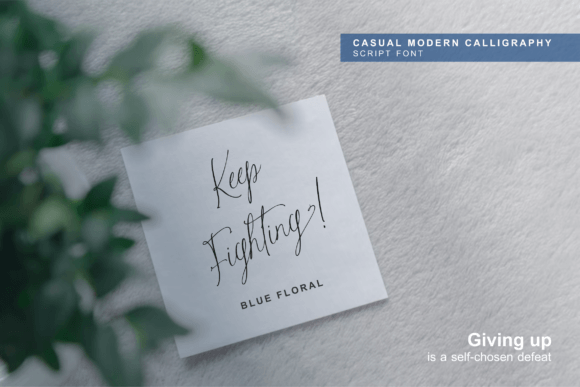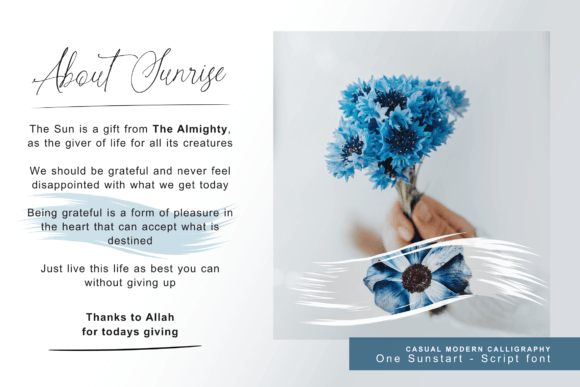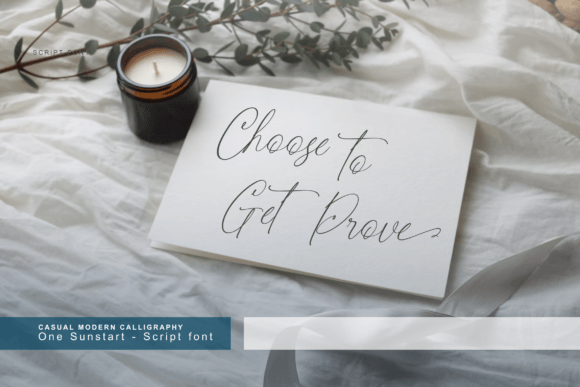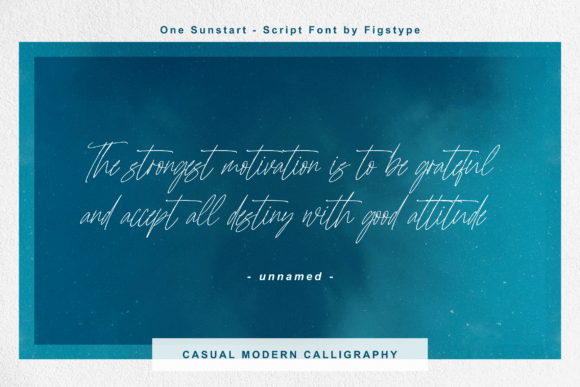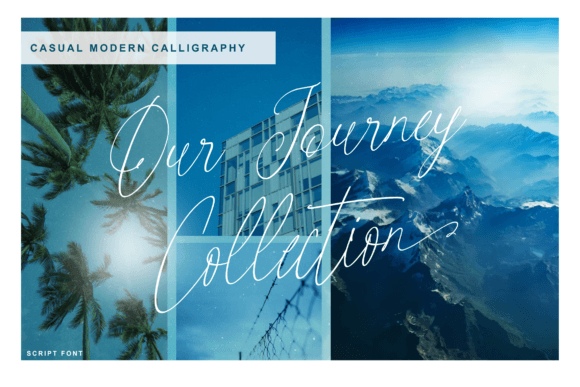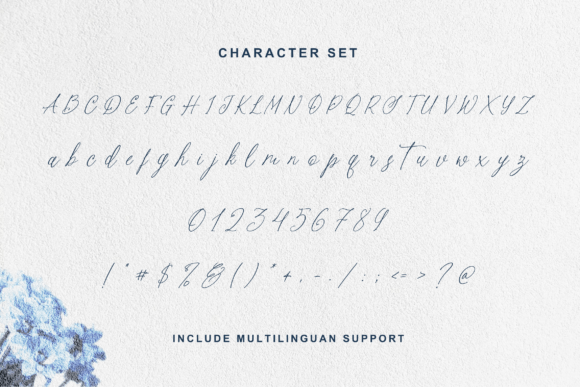
Introduction to One Sunstart Font
One Sunstart font is the perfect combination of sophistication and simplicity.
Its clean lines and gentle curves give it a classic look, while its unique design elements add a touch of creativity and personality Remember that the font is PUA encoded, meaning that you can access all delightful glyphs and swashes effortlessly.
Key Features of One Sunstart Font
Why Choose One Sunstart Font?
One Sunstart Font offers exceptional quality and versatility, making it a valuable addition to your design toolkit. Whether you’re creating for personal projects or commercial use, One Sunstart Font delivers professional results.